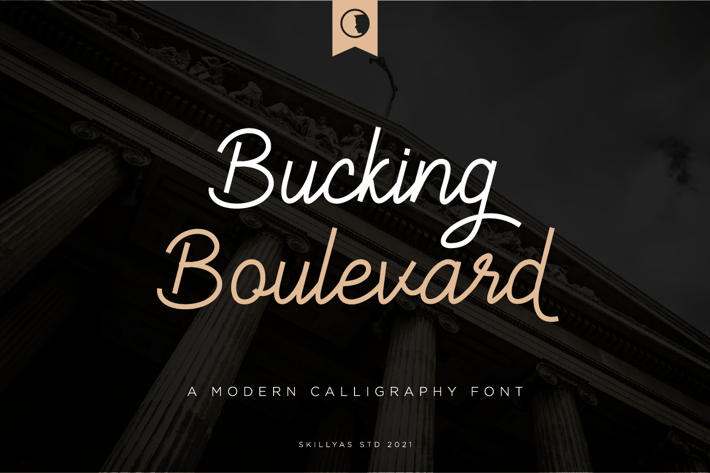
Bucking Boulevard Script Font
Bucking Boulevard is a Flowing Handwritten Font, Described by an Elegant Touch, Perfect for your Favorite Projects.
Character:
- Uppercase & Lowercase Letters
- Punctuation & Symbols Support
- PUA encoded Range Standard Alternative Style
- Ligature (Standard and Discretionary)